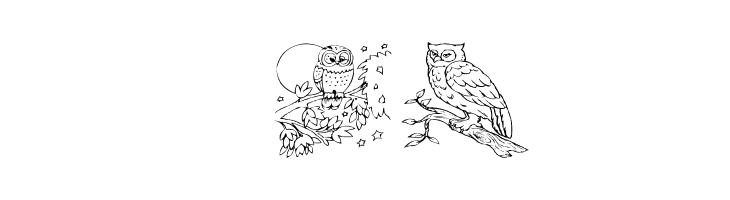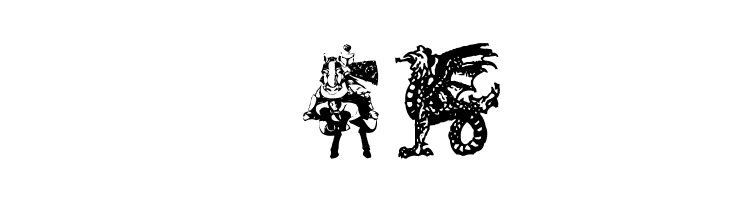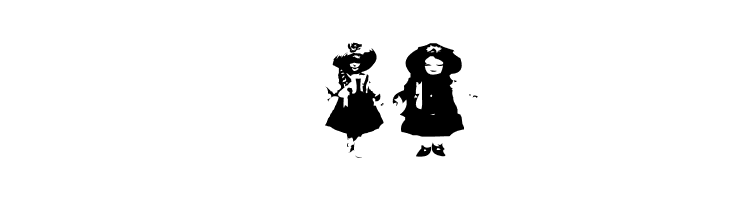
AEZlemonade Font
A bold, modern font with thick strokes and a commanding presence.
AEZ wedding dings Font
A decorative set of wedding-themed dingbats featuring couples, rings, and celebratory icons.
AEZdots Font
A playful, hand-drawn font with dotted embellishments.
AEZ medieval dings Font
A collection of medieval-themed dingbats with intricate designs.
AEZ puppy dog Font
A playful font with letters inside dog head silhouettes, perfect for pet-themed designs.
AEZAnastacia's Dings Font
A decorative dingbat set featuring playful and whimsical illustrations.
AEZ toy dolls Font
Whimsical display font using doll silhouettes as characters.
AEZ Owls for Traci Font
A collection of owl-themed decorative glyphs.
AEZ Kate's Handwriting Font
A casual, handwritten-style font with uneven strokes and a personal touch.
AEZ no name Font
A playful, hand-drawn font with varied thickness and whimsical character.
AEZ dazzle me Font
A bold, decorative font with dynamic radiating lines on each character.
AEZholidaybears Font
Holiday-themed bear illustrations as font glyphs.
AEZfairies Font
Whimsical dingbat font with fairy illustrations.
AEZbasic font Font
A playful, hand-drawn font with bold, sketchy characters.
AEZblot by Jon Zittel Font
A playful, hand-drawn font with irregular strokes and whimsical charm.
AEZhearts Font
A playful, heart-adorned font with a hand-drawn style.
AEZbighearts Font
A decorative font with characters encased in heart shapes, ideal for romantic themes.
AEZ buzz buzz Font
A bold, whimsical font with bee illustrations atop each character.
AEZ Jon's Handwriting Font
AEZ classical toys Font